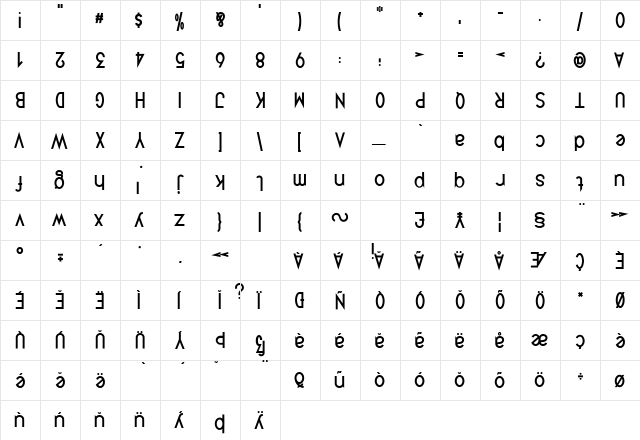
Quirkus Upside Down Regular
| Designer | Peter Wiegel |
Design Context for Quirkus Upside Down Typeface
Quirkus Upside Down offers clean, dependable letterforms without strong stylistic allegiance, making it a practical choice for designers who need flexibility.